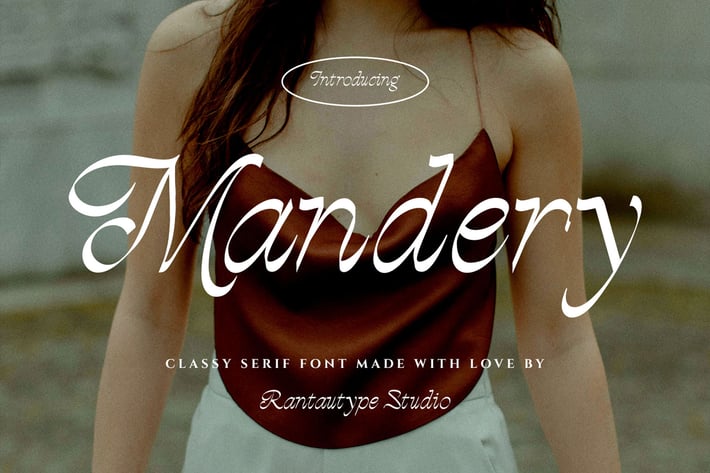
Mandery Classy Serif Font
Mandery is stylish font blend script and serif with elegant sense. Mandery bring memoriable shape to make your design project more stand out!
Alternate and Ligature